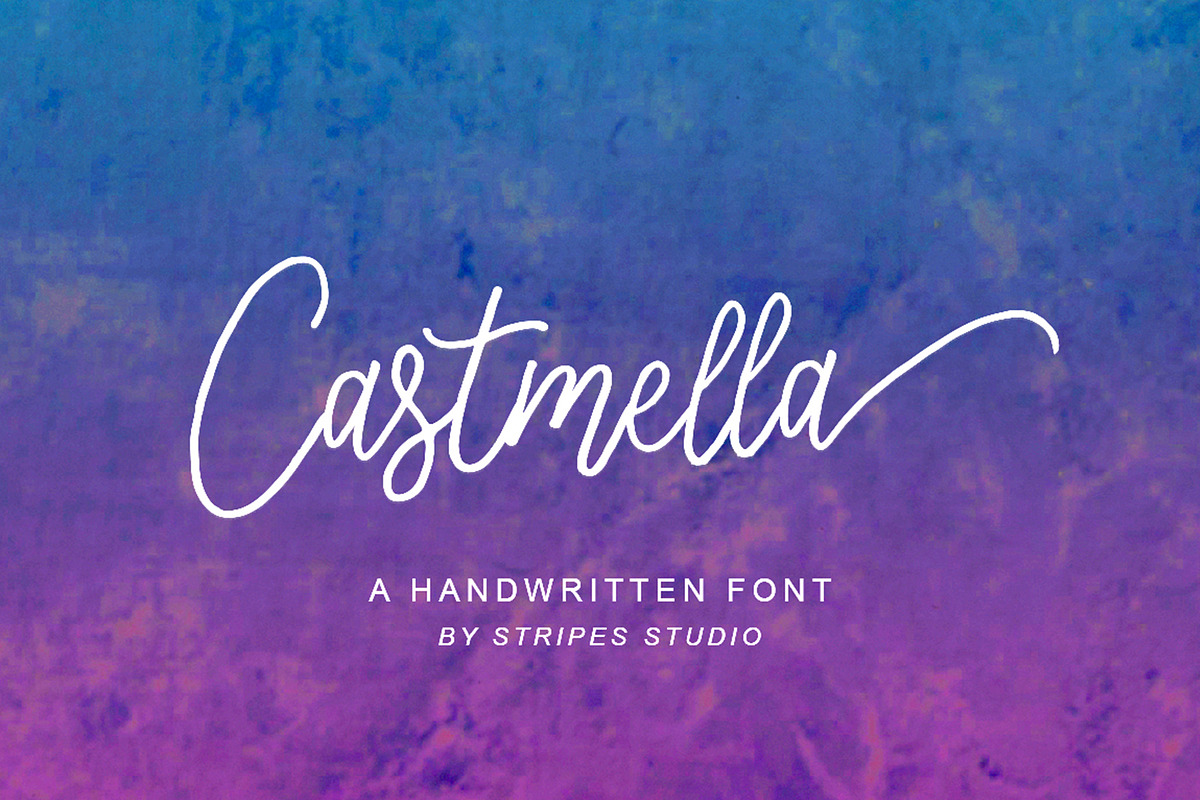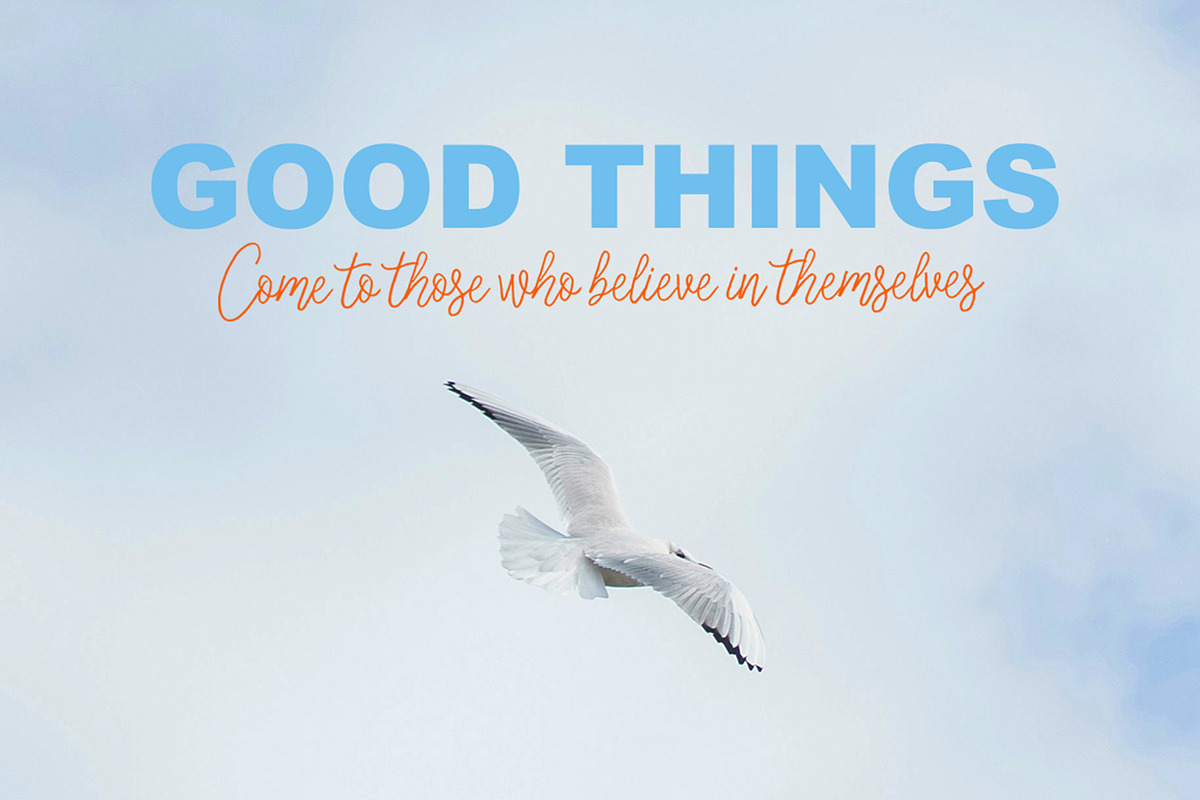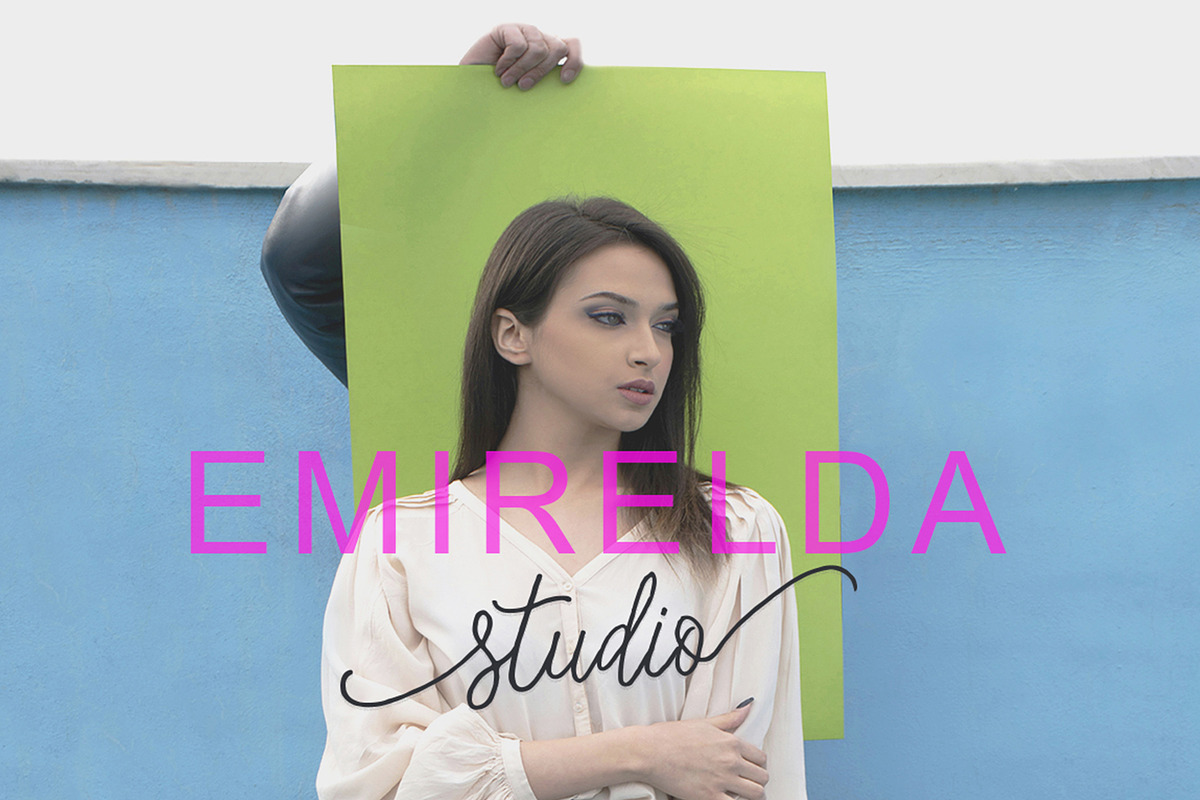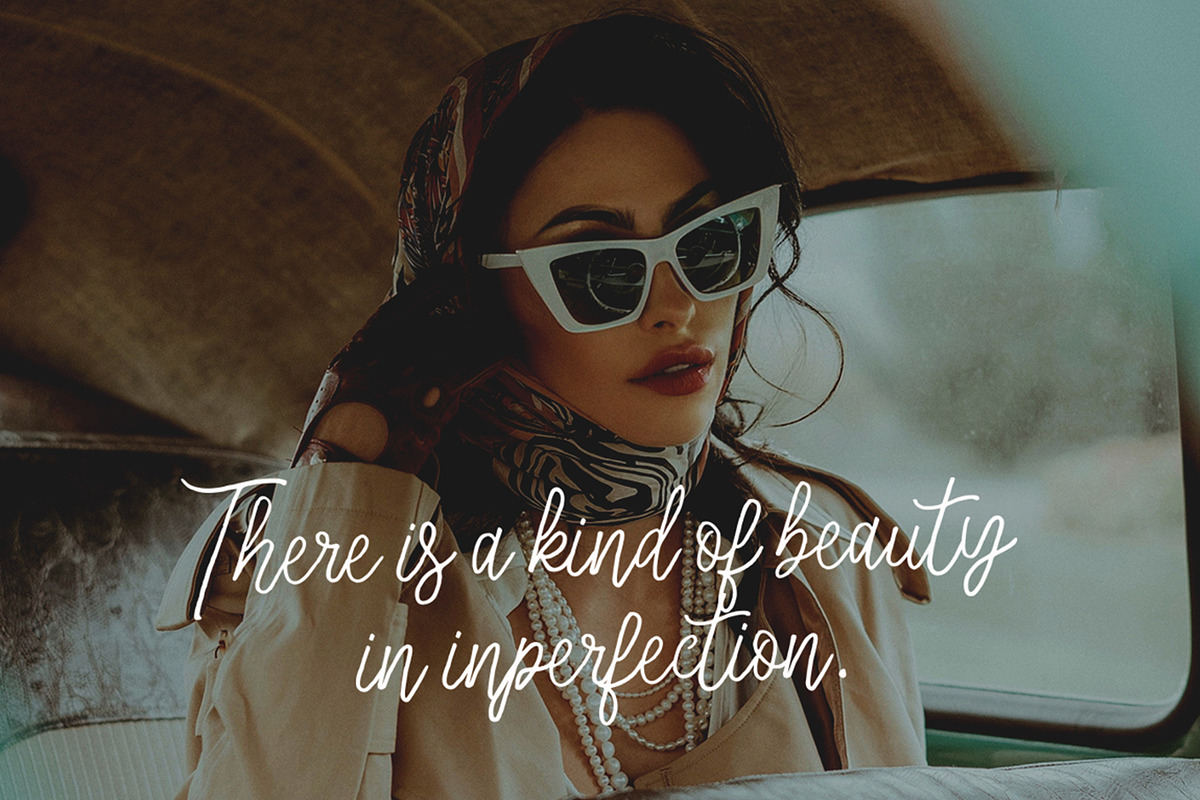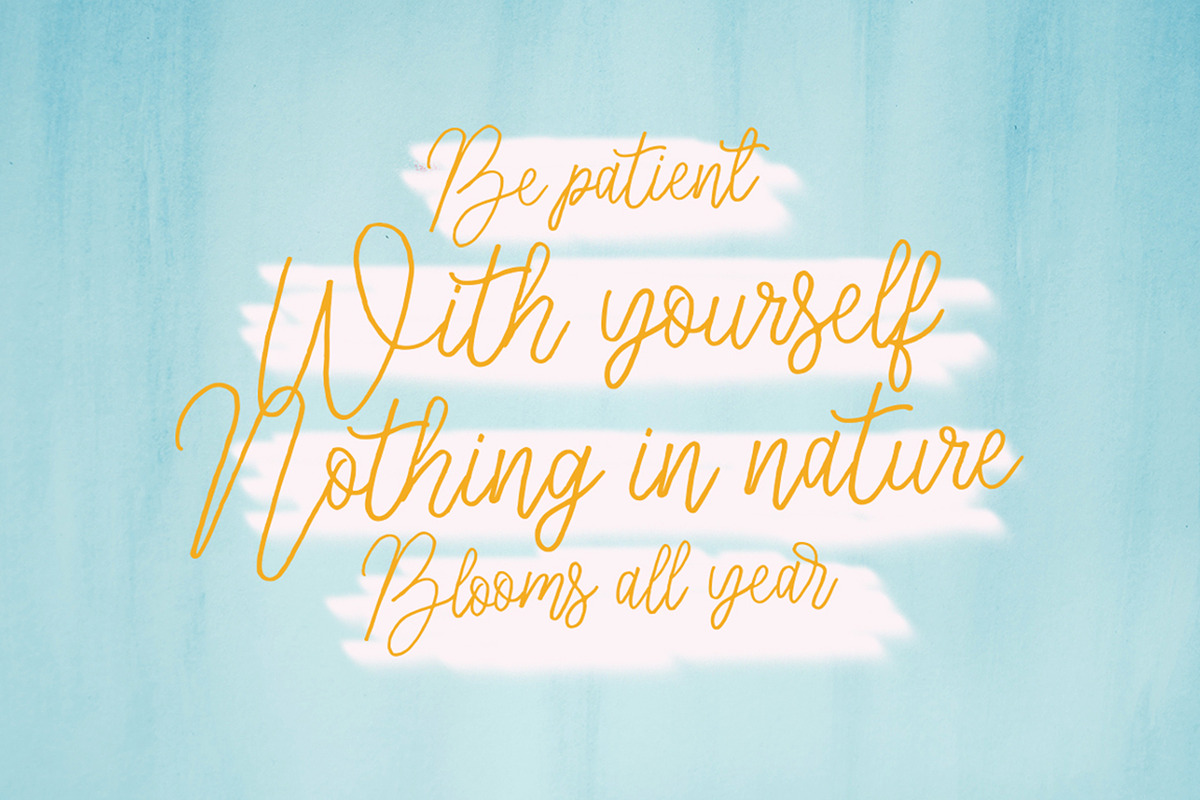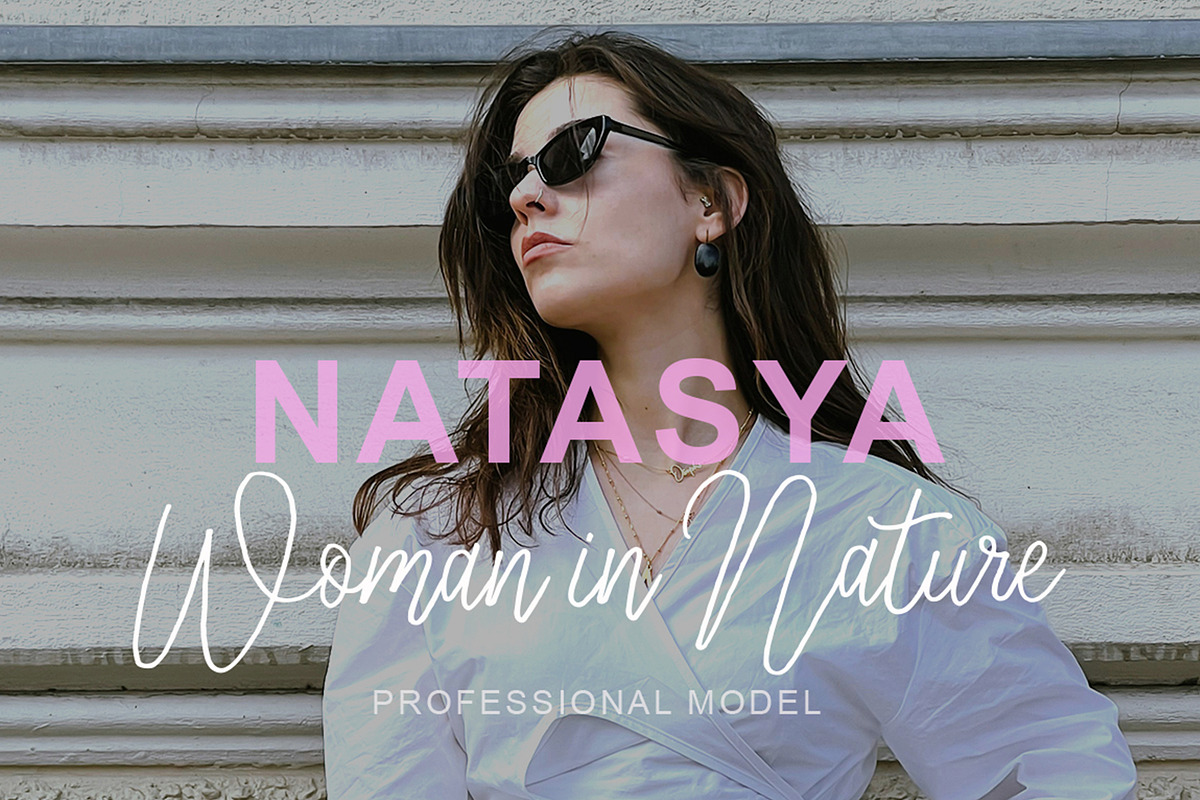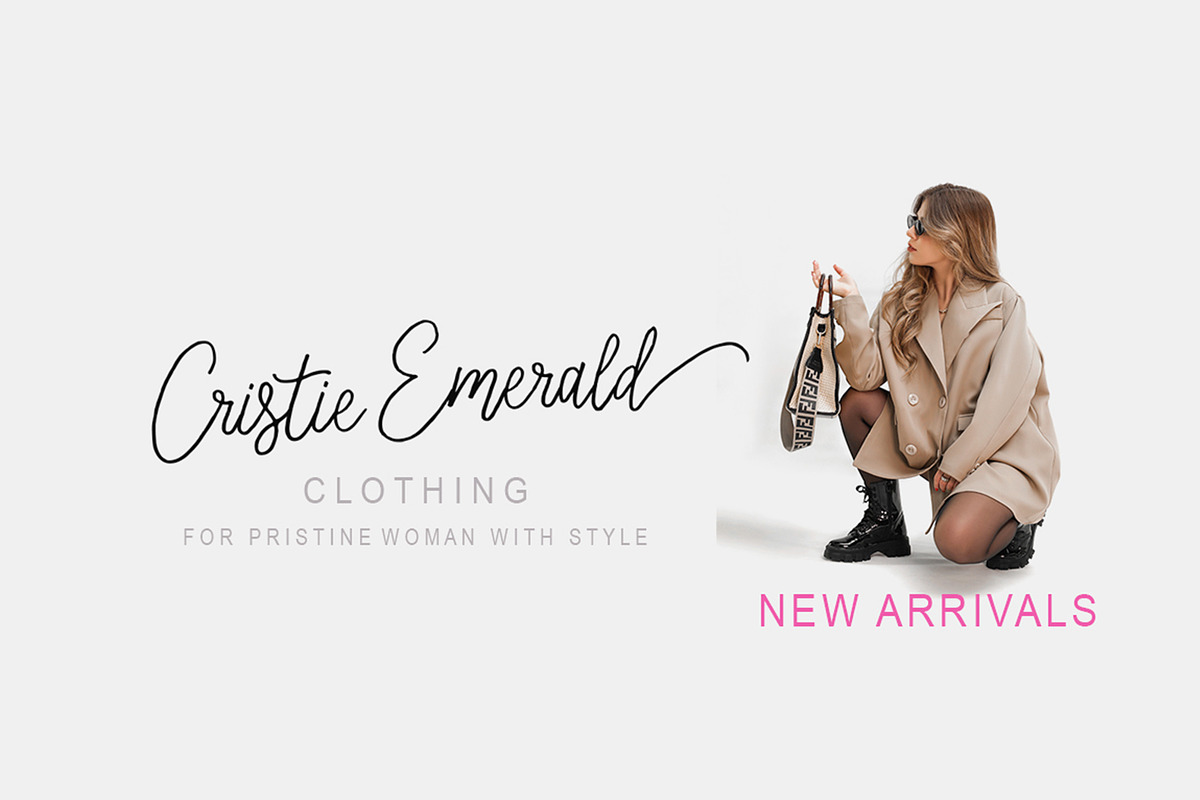
Castmella
Hi, Introducing the latest styles Castmella with the kind of modern hand scratches, I hope you are interested in this font, if you want to use for your work this font can be used easily and simply because there are a lot of features in it to contain a complete set of letters lower and uppercase letters, assorted punctuation, numbers, and multilingual support. font also contains several ligatures and alternate style Stylistic.